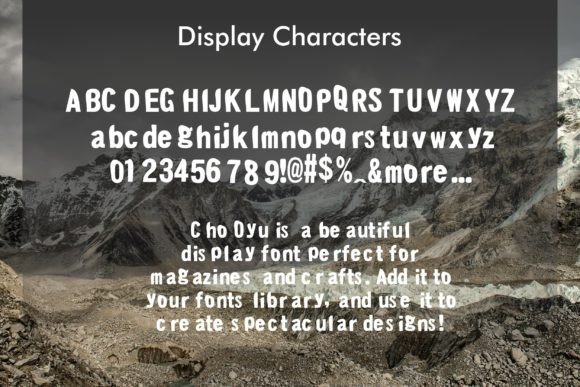
Introducing Cho Oyu Font: Elevate Your Designs with a Touch of Elegance
Are you a designer, crafter, or DIY enthusiast looking for a font that can add a touch of sophistication and elegance to your projects? Look no further than the Cho Oyu Font. This beautiful display font is perfect for magazines, crafts, and any design project that requires a unique and stylish text. In this article, we’ll explore the features and benefits of the Cho Oyu Font and how it can elevate your designs to the next level.
What is Cho Oyu Font?
Cho Oyu Font is a stunning display font designed to make a statement. Its elegant and refined aesthetic makes it perfect for a wide range of design projects, from magazine headlines to craft titles, and even social media graphics. The font is named after the sixth-highest mountain in the world, Cho Oyu, located in the Himalayas. Just like the mountain’s majestic beauty, the Cho Oyu Font is sure to leave a lasting impression on your audience.
Key Features of Cho Oyu Font
So, what makes Cho Oyu Font so special? Here are some of its key features:
- Elegant and Refined Aesthetic: The Cho Oyu Font boasts a sophisticated and elegant design that’s perfect for high-end designs.
- Display Font: This font is specifically designed for display purposes, making it ideal for headlines, titles, and other attention-grabbing text.
- Magazine-Ready: The Cho Oyu Font is perfect for magazine designs, including article titles, section headings, and more.
- Craft-Friendly: Crafters will love the Cho Oyu Font for its versatility and ease of use in various craft projects, such as papercraft, card making, and scrapbooking.
- Easy to Read: Despite its elegant design, the Cho Oyu Font is easy to read, even at smaller sizes.
Benefits of Using Cho Oyu Font
By adding the Cho Oyu Font to your design library, you’ll enjoy a range of benefits, including:
- Unique and Memorable Designs: The Cho Oyu Font will help you create designs that stand out from the crowd and leave a lasting impression on your audience.
- Easier Design Process: With the Cho Oyu Font, you’ll have a versatile and reliable design tool that can be used across various projects and applications.
- Professional-Looking Results: The Cho Oyu Font’s elegant design ensures that your projects look professional and polished, even if you’re a beginner.
- Time-Saving: The Cho Oyu Font is easy to use and doesn’t require extensive design experience, saving you time and effort in the design process.
How to Use Cho Oyu Font
- Experiment with Font Sizes: The Cho Oyu Font looks great at various sizes, so don’t be afraid to experiment and find the perfect size for your project.
- Pair with Other Fonts: Combine the Cho Oyu Font with other fonts to create a unique and visually appealing design.
- Use in Digital and Print Designs: The Cho Oyu Font is versatile and can be used in both digital and print designs, including social media graphics, magazines, and crafts.
In conclusion, the Cho Oyu Font is a beautiful display font that’s perfect for designers, crafters, and DIY enthusiasts looking to elevate their designs. With its elegant and refined aesthetic, versatility, and ease of use, this font is sure to become a staple in your design library. So why wait? Add the Cho Oyu Font to your collection today and start creating spectacular designs that leave a lasting impression!